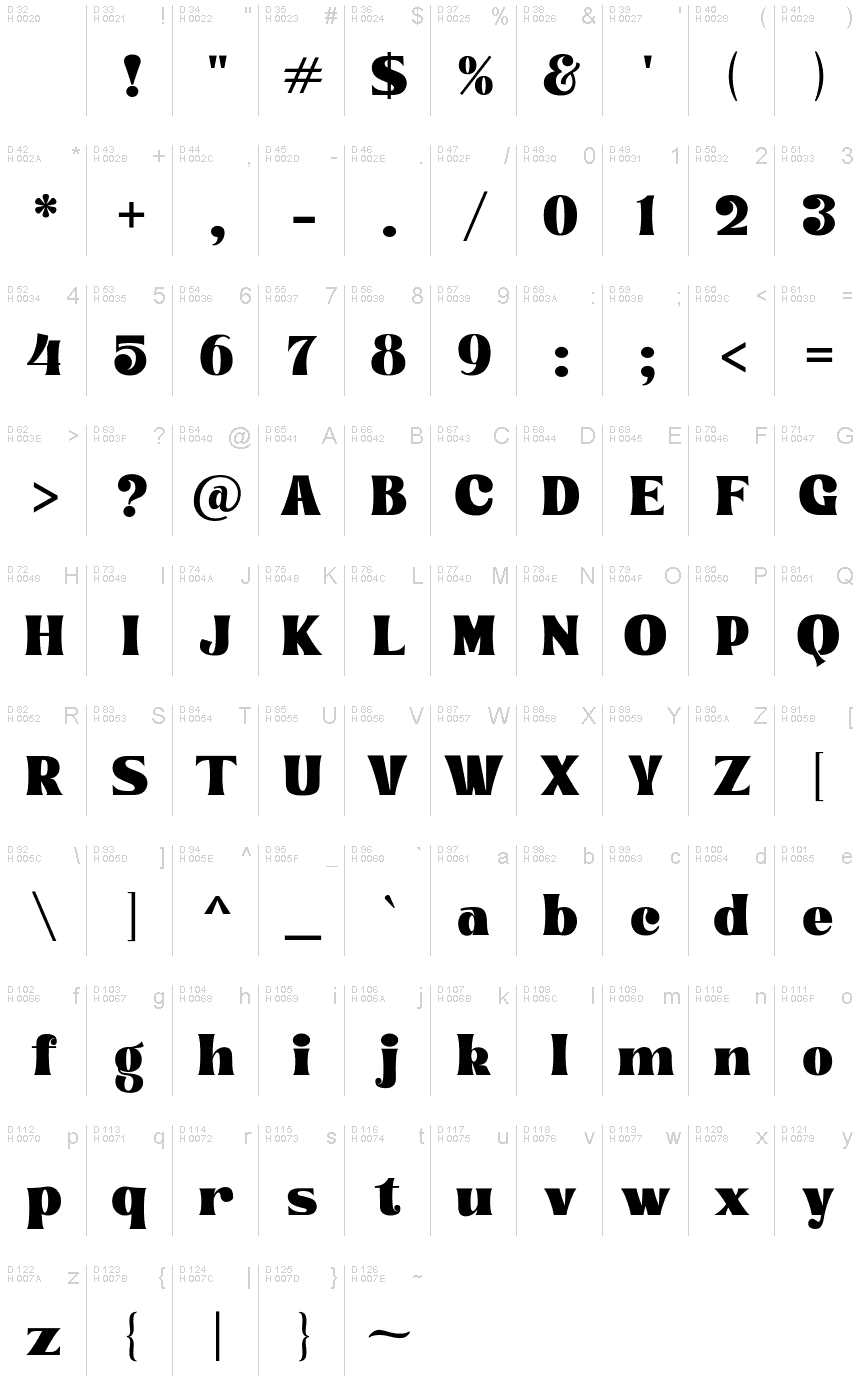
Beyond Worth Regular
Beyond Worth Regular is a captivating vintage serif font designed by Java Pep. With its extra-bold weight and semi-expanded width, this font exudes confidence and allure.
Its timeless aesthetic makes it perfect for various design projects, such as elegant invitations, high-end branding, or sophisticated packaging. Beyond Worth Regular adds a touch of nostalgia to any project, whisking your audience away to a bygone era of charm and sophistication.
Its versatility allows it to seamlessly blend into both modern and classic designs, making it an invaluable asset for any discerning designer.